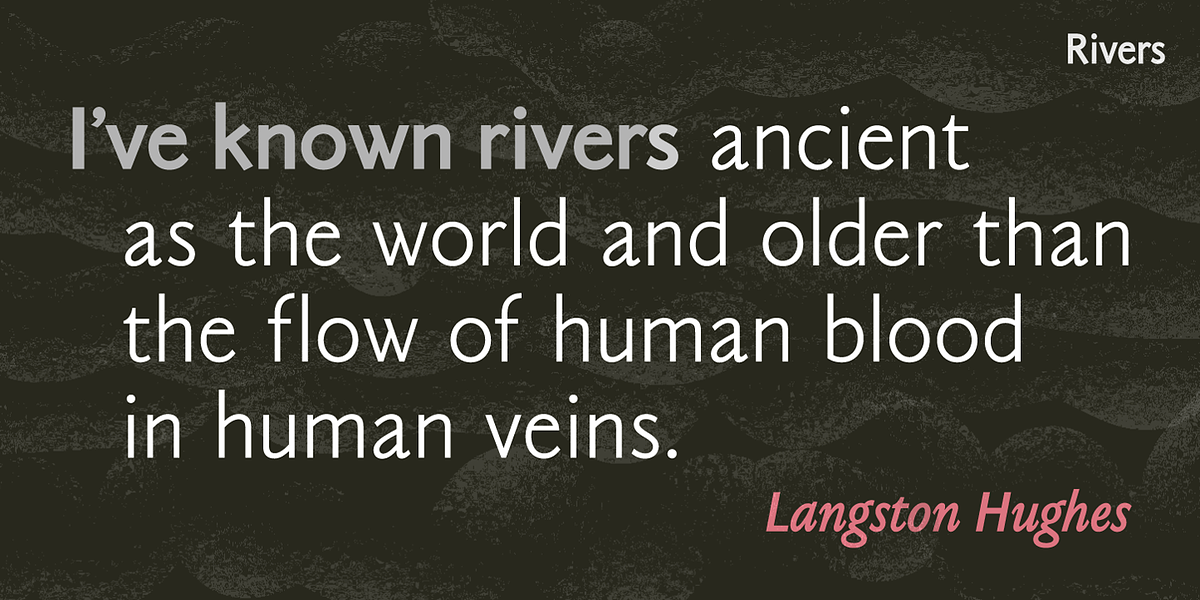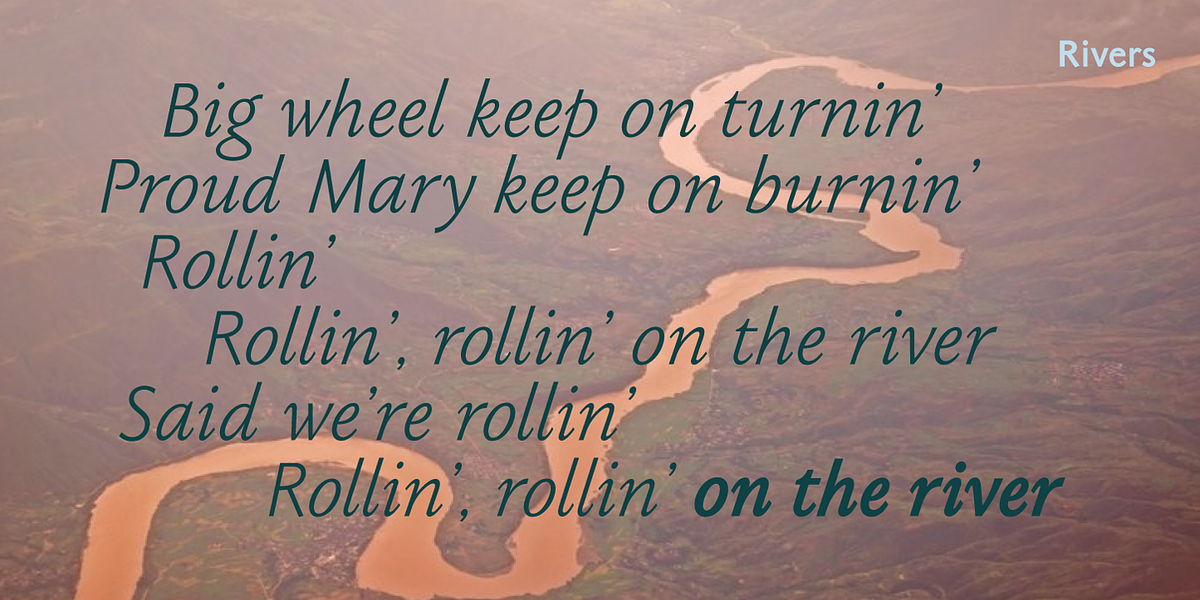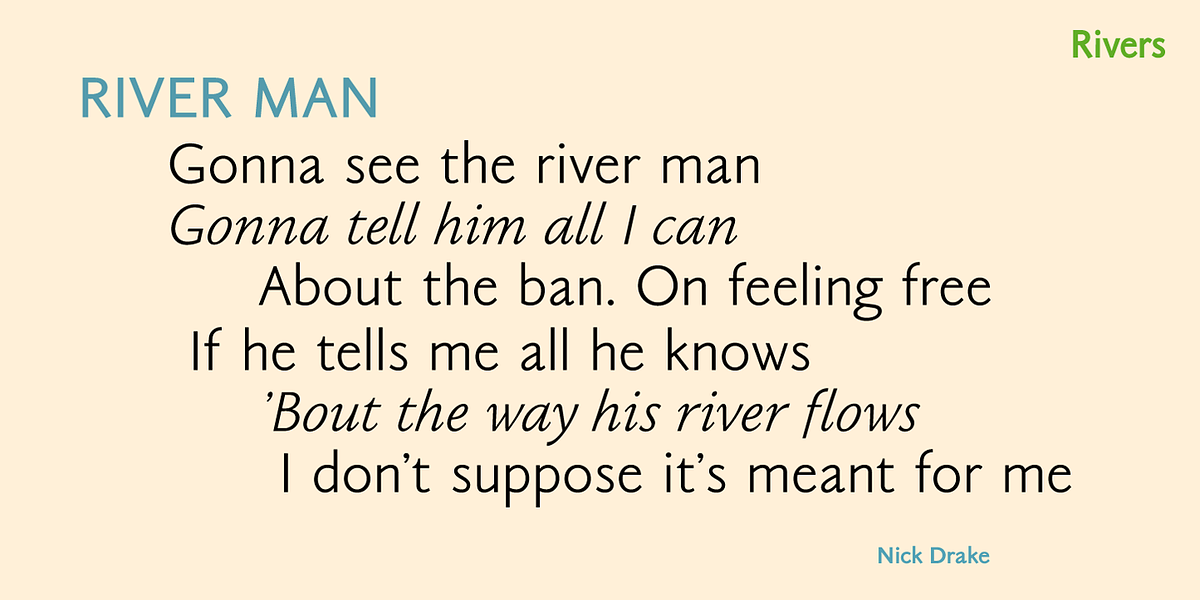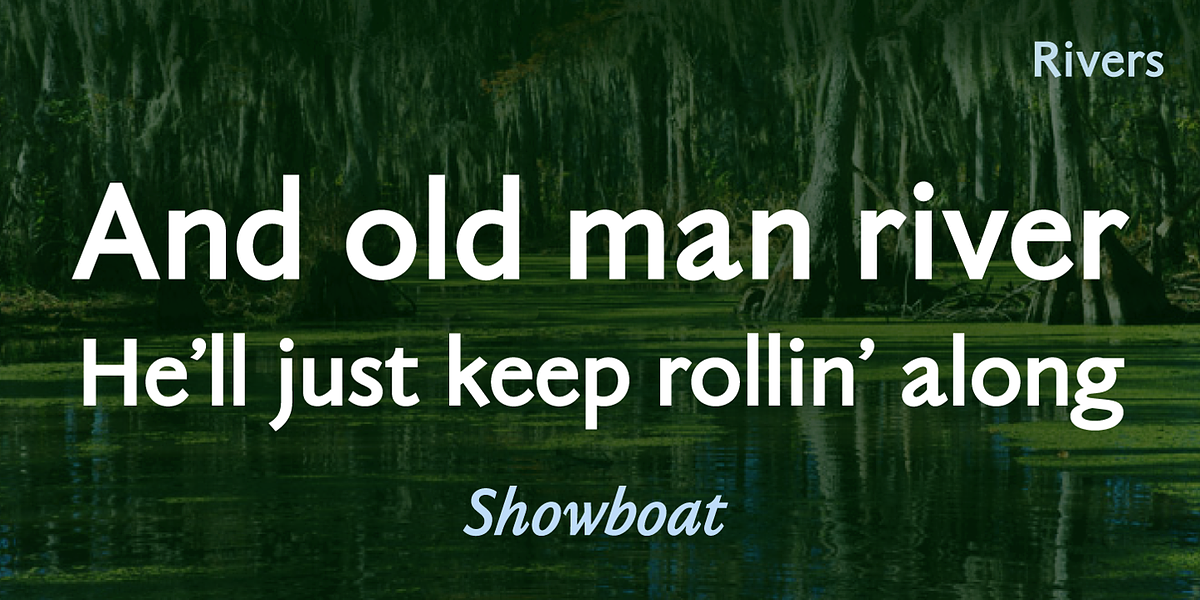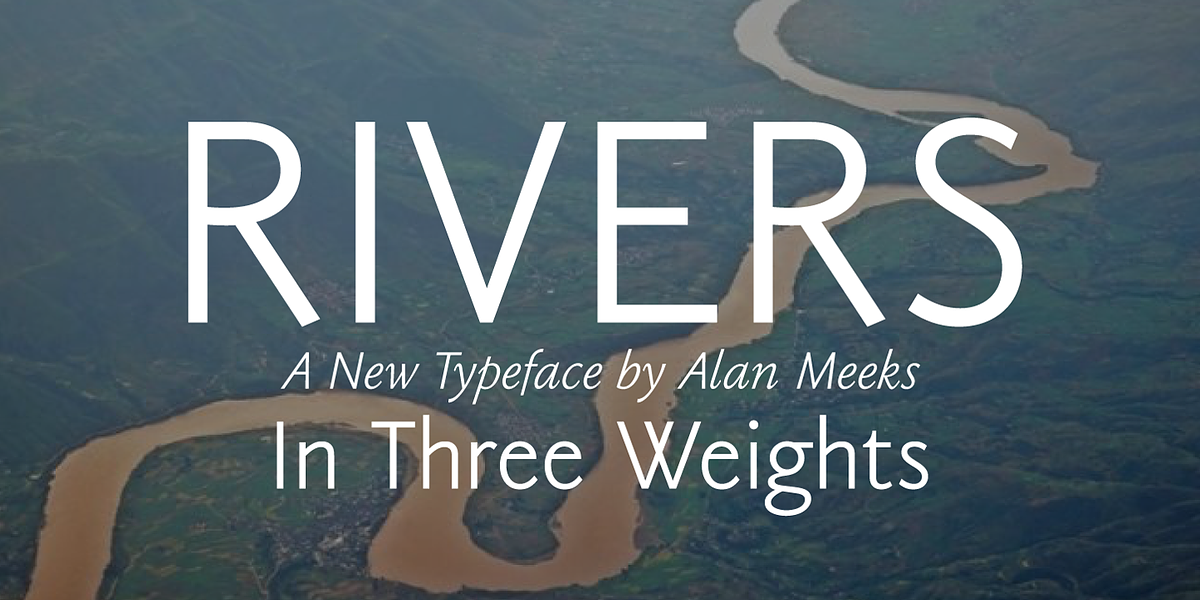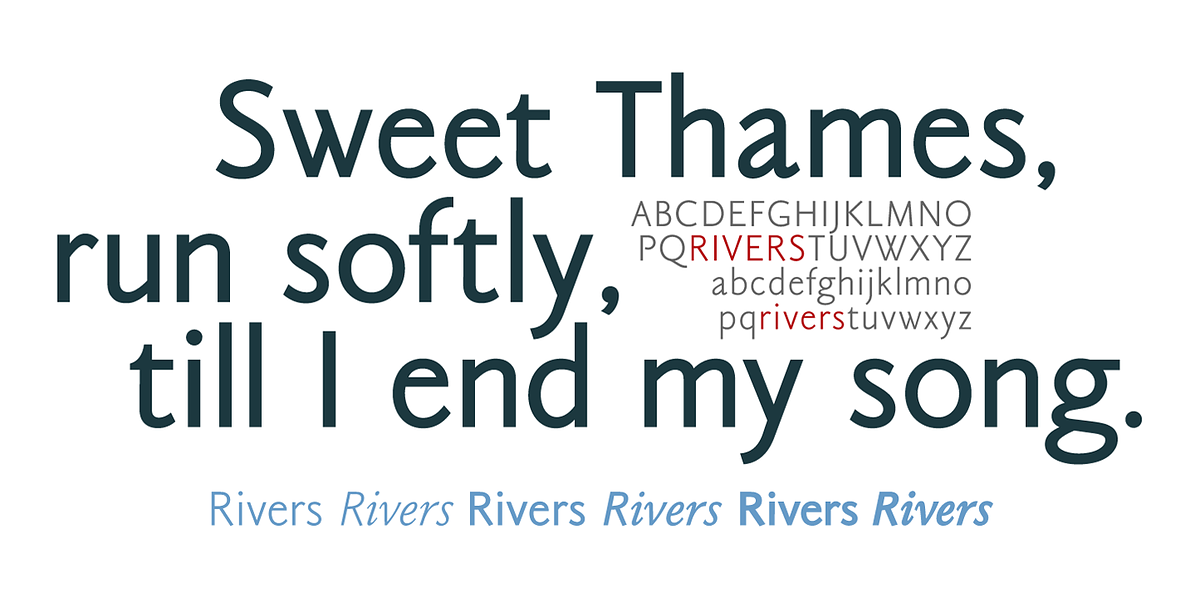
Rivers Sans
Rivers is a sans serif font that blends classic design elements with a modern aesthetic. Its humanist style evokes the familiarity of 60s and 70s typography while maintaining a clean and contemporary look. The font comes in multiple weights with matching italics, making it suitable for both headlines and body text. Rivers' versatility allows it to create a mood that is both nostalgic and current.